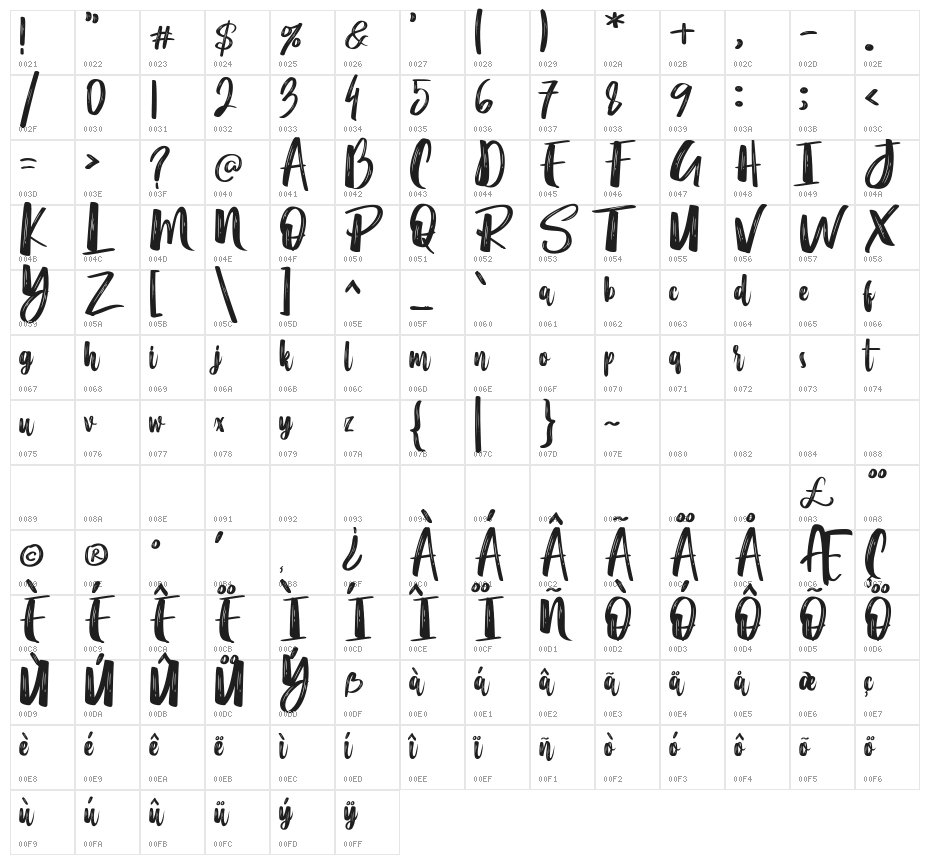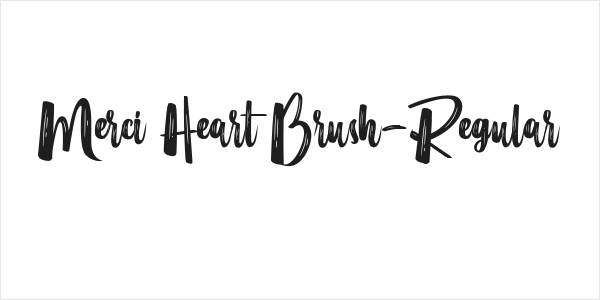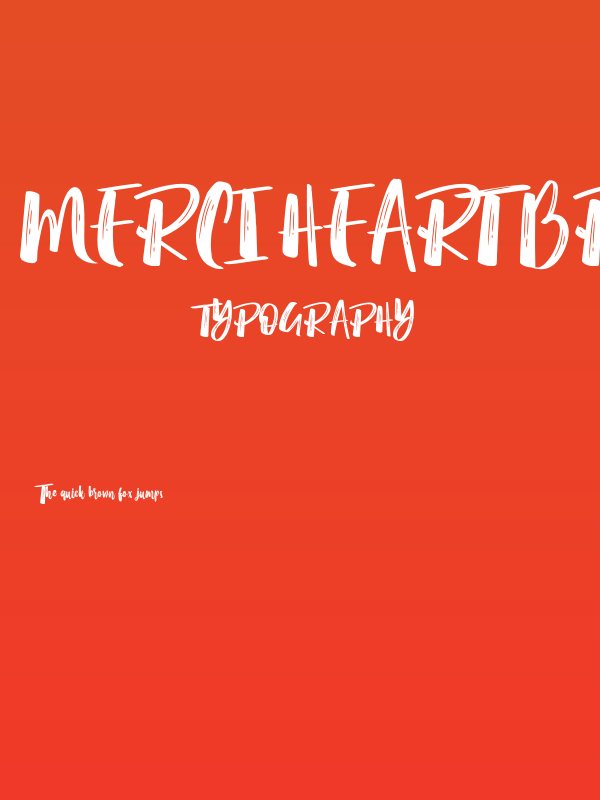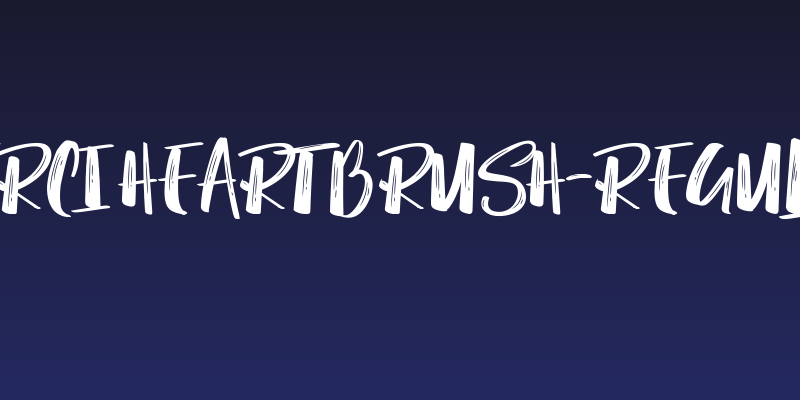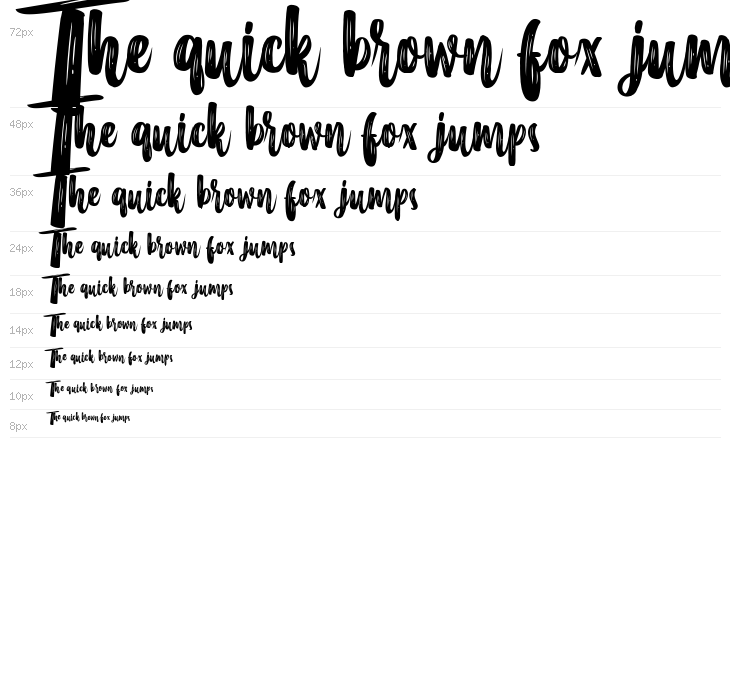
Merci Heart Brush-Regular Font
Merci Heart Brush-Regular Description
This font exudes a playful and artistic vibe, characterized by its bold, brush-like strokes that give it a hand-painted appearance. The letters are dynamic and fluid, with varying thicknesses that add a sense of movement and energy. The uppercase characters are particularly striking, with exaggerated curves and angles that make them stand out. The lowercase letters maintain a consistent style, complementing the uppercase with their own unique flair. Numbers and special characters are equally expressive, ensuring a cohesive look across all text elements. This font is perfect for projects that require a personal touch, such as invitations, posters, and branding materials.
| Proposed Projects | Ideal for invitations, posters, branding, and any project needing a personal, artistic touch. |